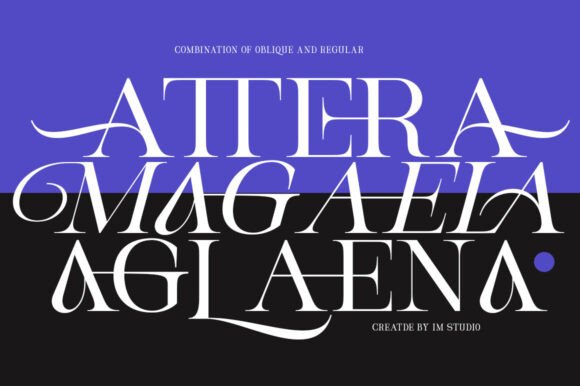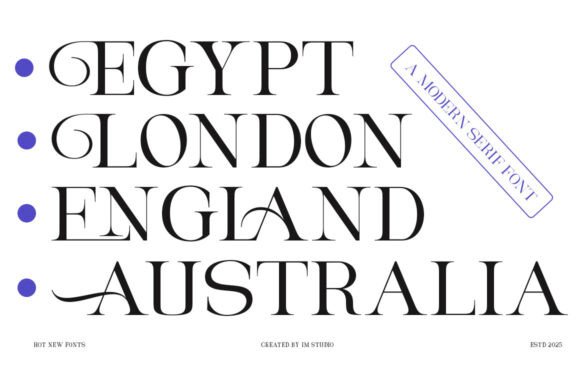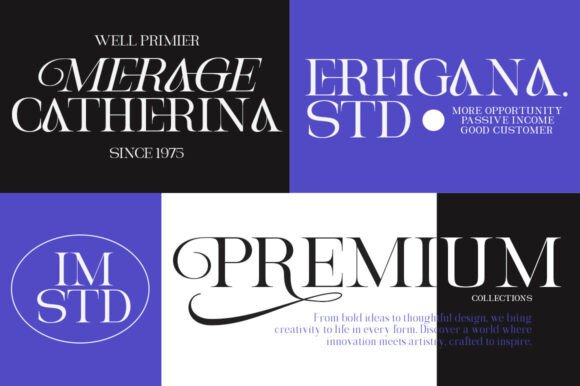
Introduction to Magerla Font
Have you ever stumbled upon the perfect design element that elevates your entire creative project to the next level? For designers, this moment is priceless – a symphony of shapes, colors, and typography that harmonizes with your vision. Today, we’re excited to share with you the Magerla Font, a stunning ligature serif font that has been making waves in the design community.
What sets Magerla Font apart from other design resources is its unique blend of sophistication and playfulness. With its tall, svelte shapes and ornamental ligatures, this font effortlessly adds a touch of elegance to any project. Whether you’re working on a logo, branding, headline, invitation, or poster, Magerla Font is sure to breathe life into your design.
Key Features of Magerla Font
- High-quality design resource ideal for creative projects, offering a unique and elegant touch.
- Unique characteristics include its modern and minimalist aesthetic, making it an excellent choice for contemporary design projects.
Honest Review: Magerla Font
One of the things that stood out to me about the Magerla Font was its high quality. The font is clean and well-designed, making it perfect for a variety of design projects.
- High quality design
- Perfect for digital and print designs
However, I did encounter a few limitations with the Magerla Font. One of the main issues I had was with the font’s limited character set. This made it difficult to use for projects that required a wide range of characters.
- Limited character set
- No bold or italic versions available
Overall, I was impressed with the Magerla Font. While it may not be perfect, it’s a great free download that’s perfect for designers on a budget. I would definitely consider using it again on future creative projects.
The Magerla Font is commonly used in graphic design projects, such as logos, brochures, and business cards. It’s also a great resource for creating custom text and titles for presentations and reports.
To get the most out of the Magerla Font, be sure to use it with a transparent background to create a clean and modern look. You can also experiment with different font sizes and colors to create unique and eye-catching designs.